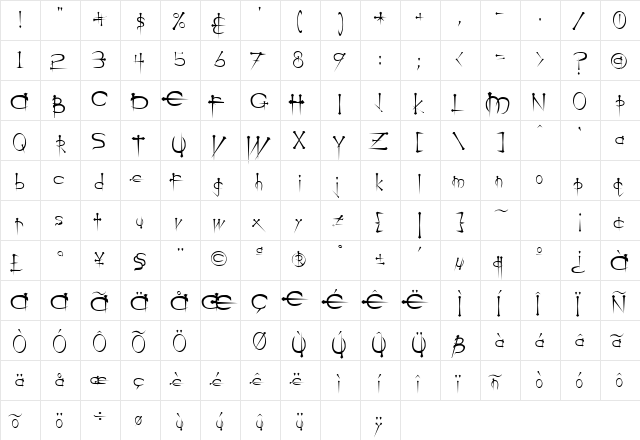
Ogilvie Regular
Design Context for Ogilvie Typeface
Ogilvie is a composed and adaptable typeface that performs quietly and consistently across a wide range of design contexts.